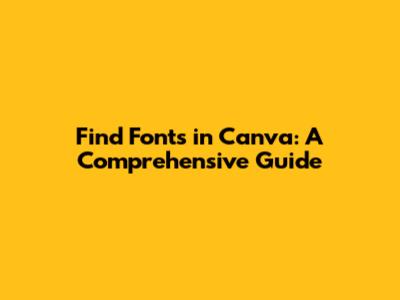
Hey guys! Ever found yourself scrolling endlessly through Canva's font library, trying to find that perfect typeface for your project? It can feel like searching for a needle in a haystack, right? Well, fear not! This guide is here to help you navigate the wonderful world of Canva fonts and discover some awesome tips and tricks along the way. Whether you're designing a killer logo, crafting eye-catching social media graphics, or putting together a stunning presentation, choosing the right font is crucial. It sets the tone, conveys your message, and makes your design pop. So, let's dive in and unlock the secrets to finding the best fonts in Canva.
Understanding the Importance of Font Choice
Before we jump into the how-to, let's quickly talk about why font choice matters so much. Think of fonts as the voice of your design. A playful, rounded font might be perfect for a children's book, but it would look totally out of place on a serious legal document. Similarly, a sleek, modern sans-serif font could be ideal for a tech startup's website, while a classic serif font might be better suited for a traditional publishing house. The right font can instantly communicate your brand's personality and values. It can evoke emotions, create a mood, and even influence the way people perceive your message. Choosing the wrong font, on the other hand, can make your design look unprofessional, confusing, or just plain boring. So, take your time, experiment with different options, and don't be afraid to get creative! Remember, the best font is the one that perfectly complements your design and helps you achieve your goals. It is also useful to consider things like readability, especially if your design involves a lot of text. A beautiful font is useless if people can't easily read it! Pay attention to the font's kerning (the spacing between letters) and leading (the spacing between lines) to ensure optimal readability. Also, consider the font's weight (light, regular, bold) and style (italic, condensed, expanded) to add visual interest and hierarchy to your text. By carefully considering all these factors, you can choose fonts that not only look great but also effectively communicate your message.
Navigating Canva's Font Library
Okay, let's get practical. When you open a design in Canva, you'll find the font options in the toolbar at the top of the screen. Click on the font name to open the dropdown menu, and boom! You're greeted with a massive list of fonts. It can be a bit overwhelming, I know. But don't worry, Canva provides some handy tools to help you narrow down your search. First, you can use the search bar to look for specific font names. If you already have a particular font in mind, just type it in and see if Canva has it. Canva's library is impressively extensive, so there's a good chance you'll find what you're looking for. Next, you can browse fonts by category. Canva organizes fonts into various categories like Serif, Sans Serif, Script, Display, and Handwritten. This is a great way to explore different font styles and discover new favorites. For example, if you're looking for a classic and elegant font, you might want to check out the Serif category. Or, if you prefer something clean and modern, the Sans Serif category is your best bet. Canva also offers curated font pairings, which are pre-selected combinations of fonts that work well together. This can be a lifesaver if you're not sure which fonts to pair with each other. Simply choose a font pairing that you like, and Canva will automatically apply it to your design. These font pairings are designed to create a harmonious and visually appealing look, saving you time and effort. Experimenting with different font pairings is a great way to learn about typography and develop your own unique style.
Pro Tips for Finding the Perfect Font
Alright, let's level up your font-finding game with some pro tips. First, consider your brand. Your font choices should align with your brand's personality and values. If you have a fun and playful brand, go for fonts that reflect that. If you have a serious and professional brand, stick to more classic and understated fonts. Second, think about your audience. Who are you trying to reach with your design? Choose fonts that will resonate with your target audience. For example, if you're designing for a younger audience, you might want to use more trendy and modern fonts. Third, pay attention to readability. As I mentioned earlier, readability is key. Make sure your fonts are easy to read, especially for body text. Avoid using overly decorative or stylized fonts for large blocks of text. Fourth, don't be afraid to experiment. Try out different fonts and see what works best for your design. Canva makes it easy to preview fonts, so you can quickly see how they look in your project. Fifth, use font pairing resources. There are tons of websites and tools that can help you find great font pairings. Google Fonts, FontPair, and Canva's own font pairing suggestions are all excellent resources. And sixth, keep it simple. Sometimes, less is more. You don't need to use a million different fonts in your design. In fact, using too many fonts can make your design look cluttered and confusing. Stick to a maximum of two or three fonts, and make sure they complement each other well. By following these pro tips, you'll be well on your way to finding the perfect fonts for all your Canva projects.
Exploring Canva's Font Categories
Canva offers a diverse range of font categories to suit every design need. Let's take a closer look at some of the most popular categories: Serif fonts are characterized by their small decorative strokes, or serifs, at the end of each letter. They are often used for headlines and body text in print materials, as they are considered to be highly readable. Some popular serif fonts in Canva include Times New Roman, Georgia, and Playfair Display. Sans Serif fonts, on the other hand, do not have serifs. They have a cleaner and more modern look, making them ideal for websites, logos, and other digital designs. Some popular sans serif fonts in Canva include Arial, Helvetica, and Montserrat. Script fonts are designed to mimic handwriting. They can add a touch of elegance and personality to your designs. However, they should be used sparingly, as they can be difficult to read in large blocks of text. Some popular script fonts in Canva include Brush Script MT, Pacifico, and Great Vibes. Display fonts are designed to be eye-catching and attention-grabbing. They are often used for headlines, posters, and other large-format designs. Display fonts come in a wide variety of styles, from bold and geometric to playful and whimsical. Some popular display fonts in Canva include Bebas Neue, Lobster, and Impact. Handwritten fonts are designed to look like they were written by hand. They can add a personal and informal touch to your designs. Handwritten fonts are often used for invitations, greeting cards, and other designs that require a human touch. Some popular handwritten fonts in Canva include Permanent Marker, Indie Flower, and Amatic SC. By exploring these different font categories, you can discover the perfect fonts to bring your designs to life.
Mastering Font Pairing in Canva
Font pairing is the art of combining two or more fonts that complement each other and create a visually appealing design. It's a skill that can take some time to master, but it's well worth the effort. A good font pairing can elevate your design and make it look more professional and polished. One of the most basic font pairing principles is to combine a serif font with a sans serif font. This creates a nice contrast and makes your design more visually interesting. For example, you could pair a serif font like Times New Roman with a sans serif font like Arial. Another popular font pairing technique is to combine a bold font with a light font. This creates a visual hierarchy and helps to guide the reader's eye. For example, you could use a bold font for your headlines and a light font for your body text. You can also pair fonts from the same font family. This creates a cohesive and harmonious look. For example, you could pair Montserrat Bold with Montserrat Light. Canva offers a variety of font pairing suggestions to help you get started. These suggestions are curated by Canva's design experts and are designed to create a visually appealing and balanced look. To access Canva's font pairing suggestions, simply click on the "Styles" tab in the left-hand menu. From there, you can browse through a variety of pre-designed font pairings and apply them to your design with just one click. Experimenting with different font pairings is a great way to learn about typography and develop your own unique style. Don't be afraid to try new things and see what works best for your design. With a little practice, you'll be a font pairing pro in no time!
Conclusion: Unleash Your Creativity with Canva Fonts
So there you have it, guys! A comprehensive guide to finding the best fonts in Canva. I hope this article has given you some valuable insights and inspiration for your next design project. Remember, choosing the right font is crucial for creating a visually appealing and effective design. Take your time, explore different options, and don't be afraid to experiment. With Canva's vast font library and user-friendly tools, you have everything you need to unleash your creativity and create stunning designs that stand out from the crowd. Now go forth and conquer the world of typography! Happy designing!